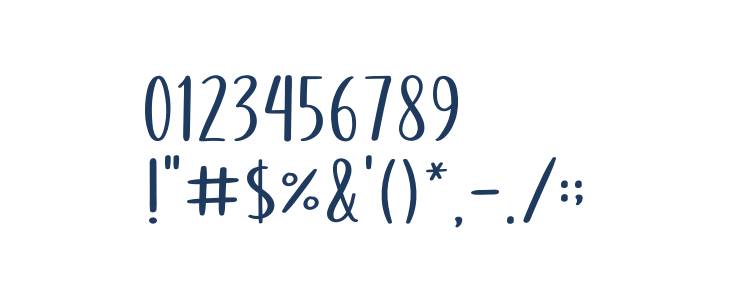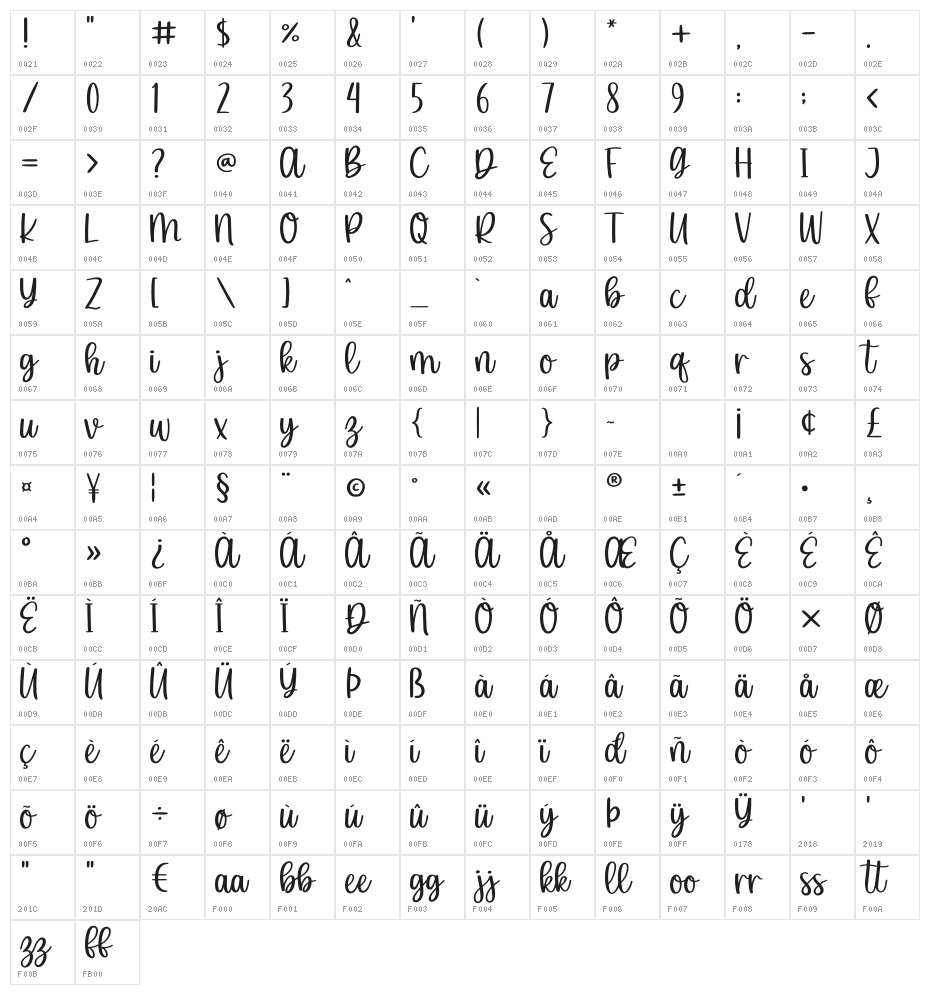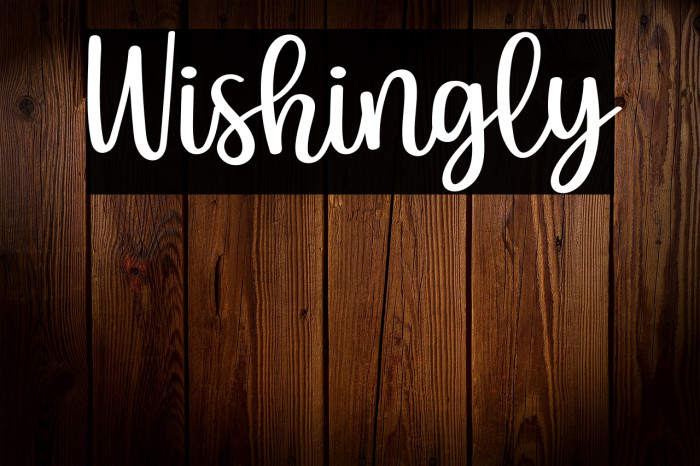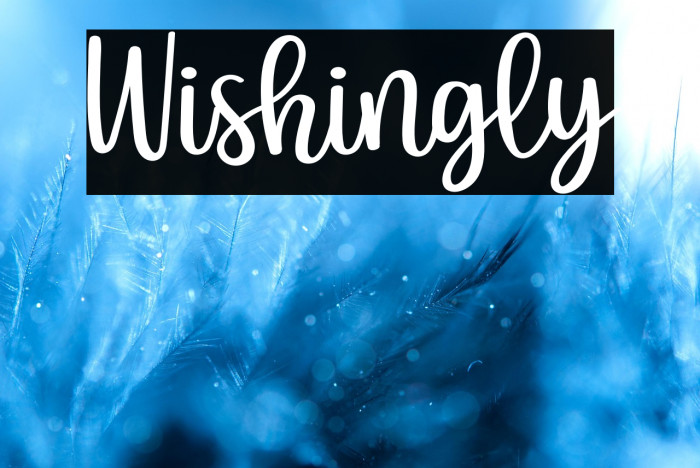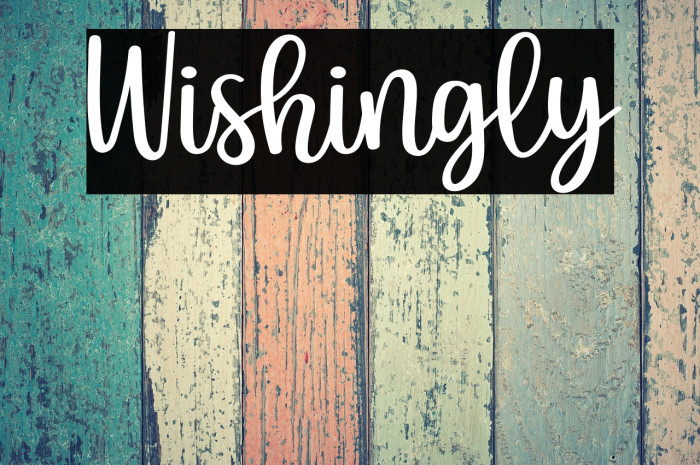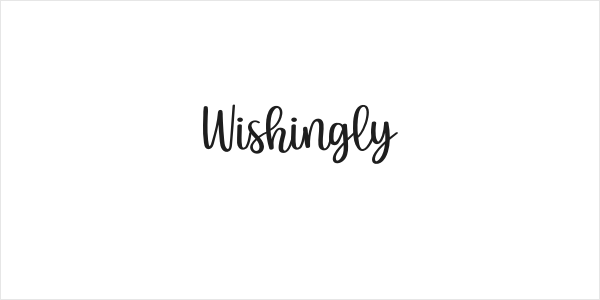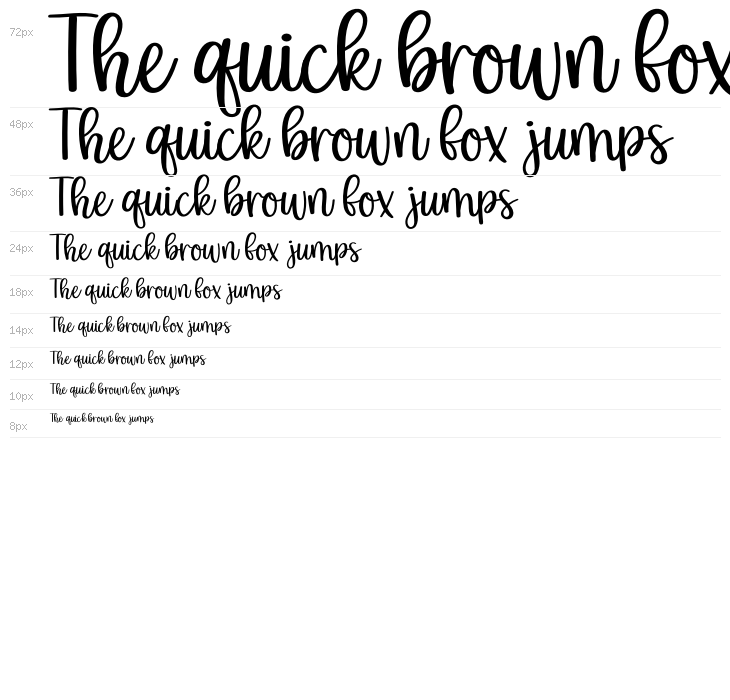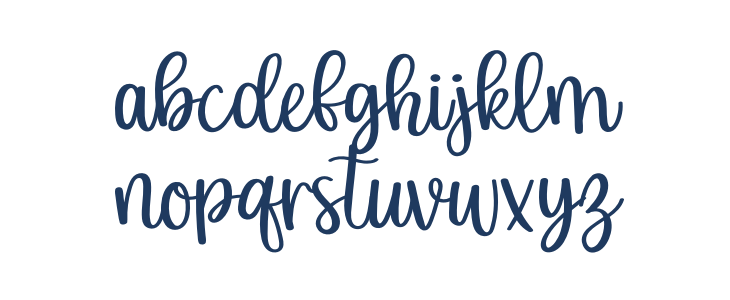
Wishingly Font
Wishingly Description
This font features a playful and flowing handwritten style, characterized by its smooth curves and casual elegance. The letters are connected in a fluid manner, giving it a cohesive and organic appearance. The uppercase letters maintain a consistent height, while the lowercase letters exhibit a charming variation in size, adding to the font's whimsical nature. The numbers and special characters are crafted with the same attention to detail, ensuring a harmonious look across all elements. The font's overall design is both approachable and stylish, making it suitable for a variety of creative applications.
| Proposed Projects | Ideal for greeting cards, invitations, personal branding, and creative social media graphics. |